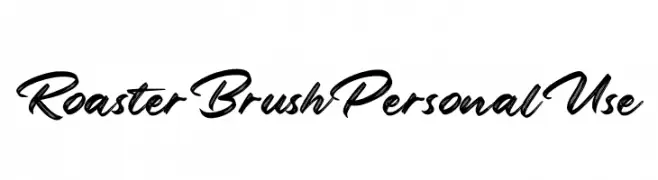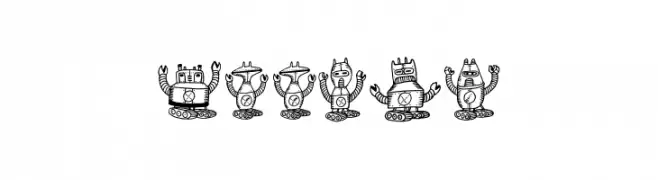
A bold, graffiti-inspired font with sharp, angular edges and a dynamic, dripping effect.
A modern, high-contrast serif font with elegant and stylish characters.
A dynamic brush script font with fluid, expressive strokes.
A whimsical font featuring unique robot characters for each letter and symbol.
A casual, handwritten font with a lively and organic feel.
A sleek, modern cursive font with smooth, flowing lines and slightly slanted characters.
A bold, playful font with a retro and whimsical design.
A bold, retro-inspired font with high contrast and playful, stylized characters.